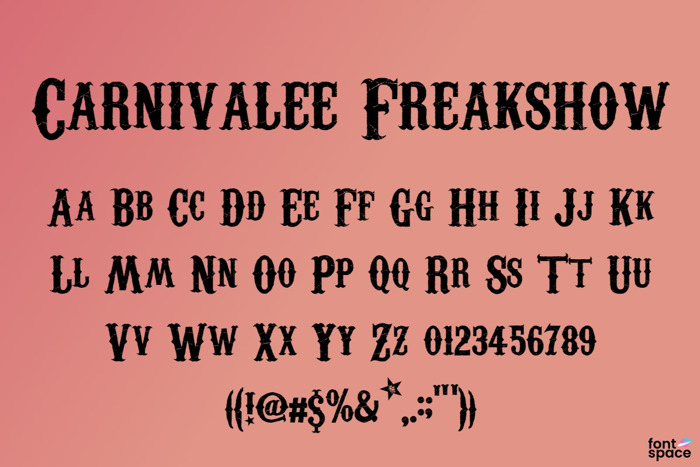
Carnivalee Freakshow Font
Carnivalee Freakshow Font is a Carnival font and was created on . Carnivalee Freakshow Font has been downloaded 734,610 times, added to 3,948 collections, and liked 111 times.
awesome, i saw this font from a friend he used it in his school projects. I like the way is presented on how to use a font like transparency on texture paper
Very nice font. The Stars used in punctuation is a very nice touch. Thanks
I am very into Circus' atm and I LOVE this font! I went on google images and found pictures of it as it was used and I thought I need that ha. Not for any particular reason except I love it 😄
I love It!
Gold~!
the right one for our cicus show
great!
this is gold
very nice